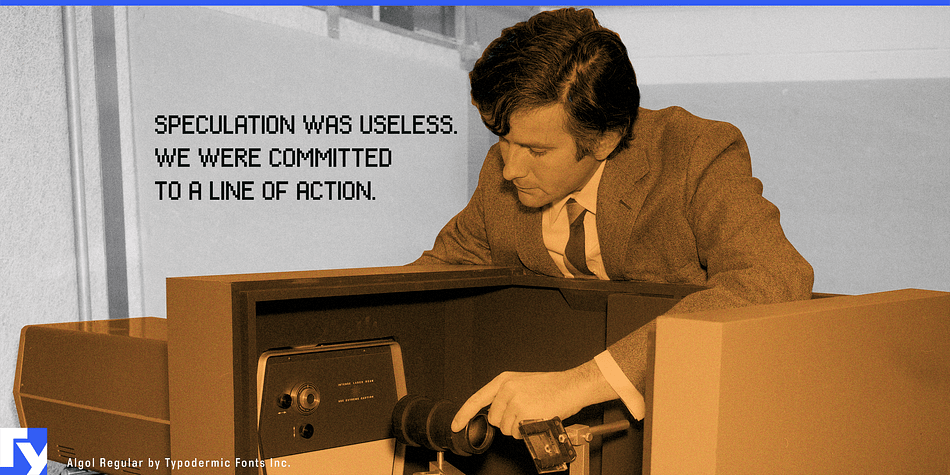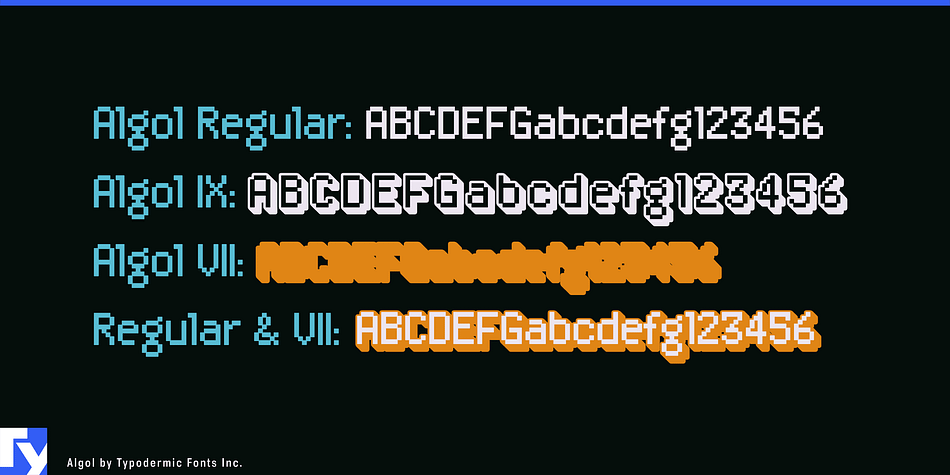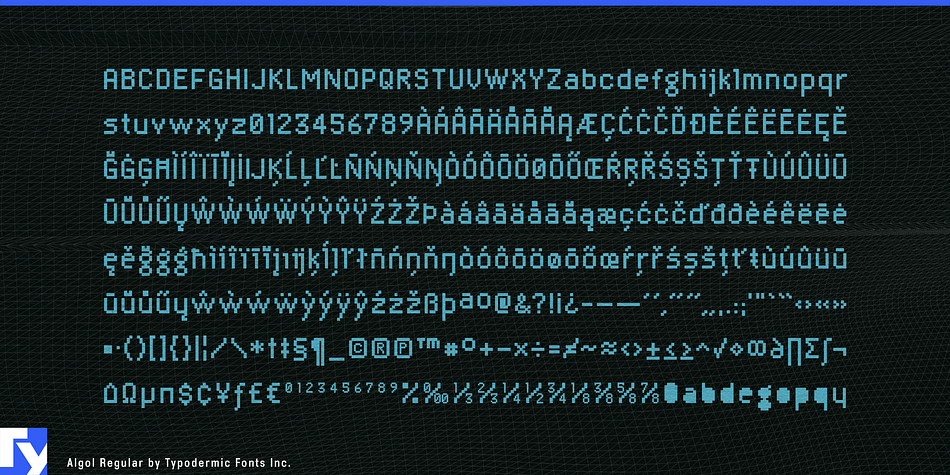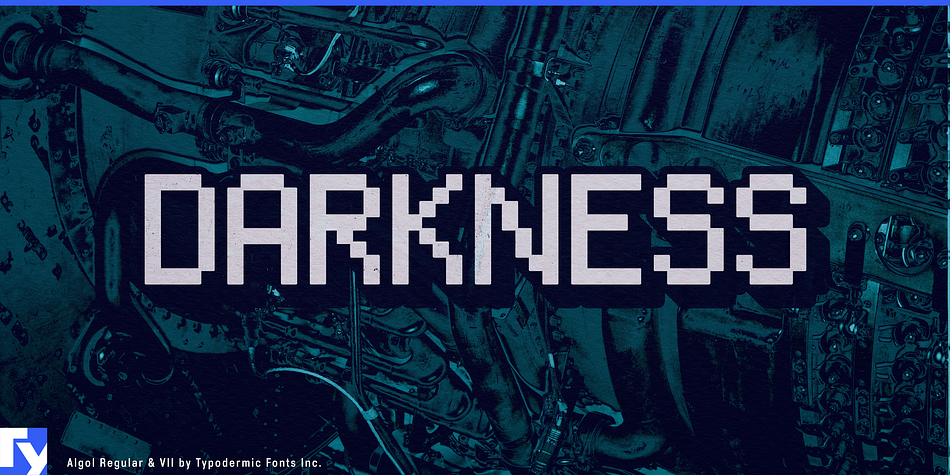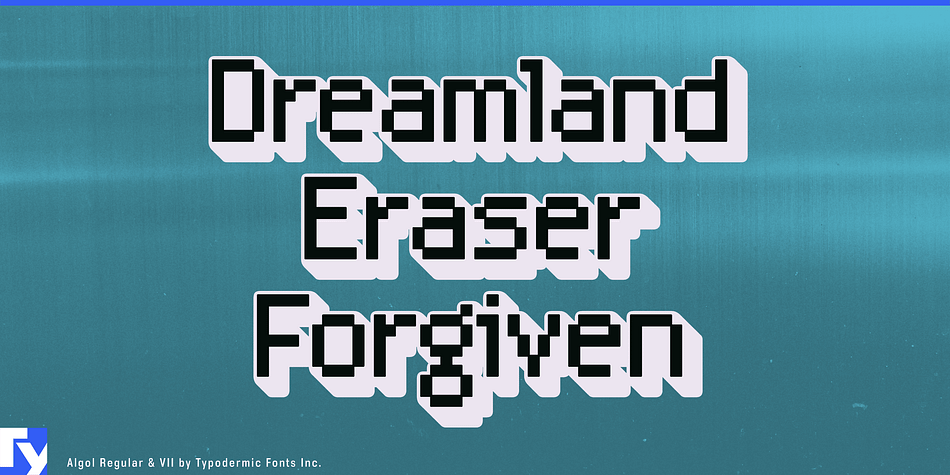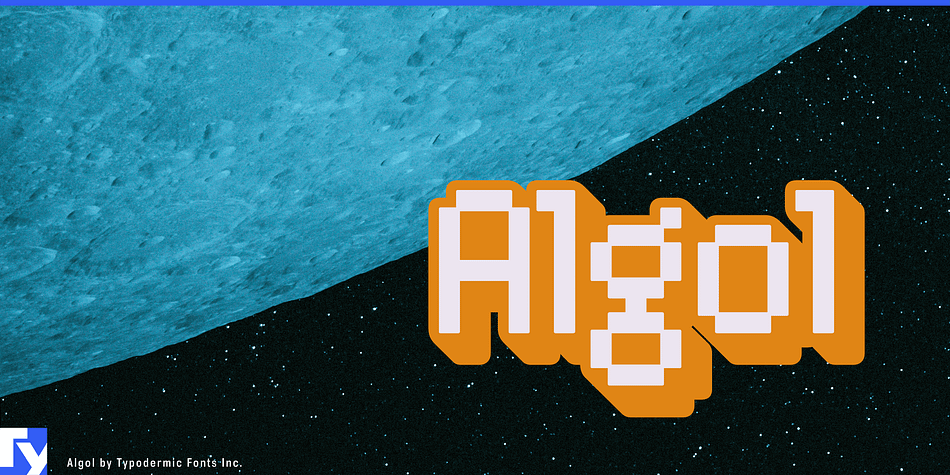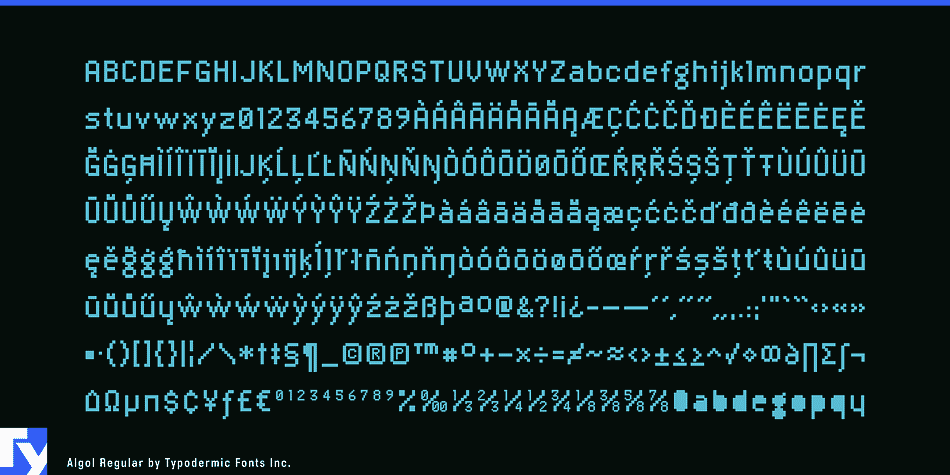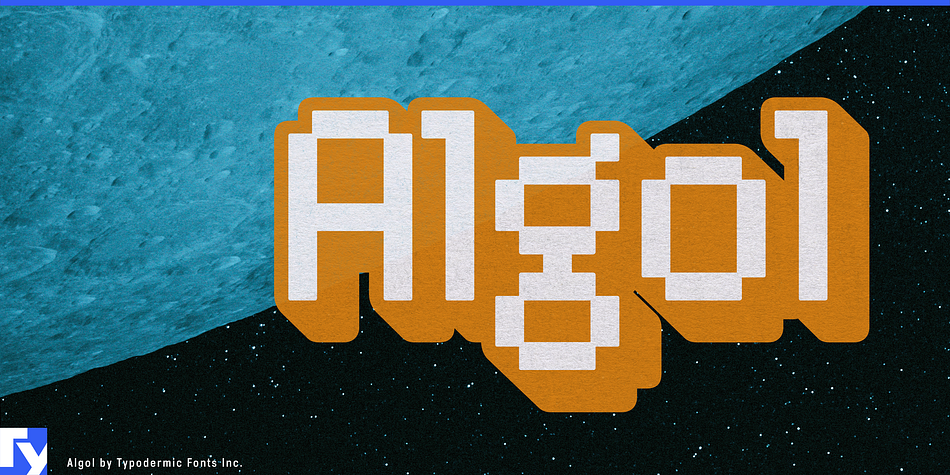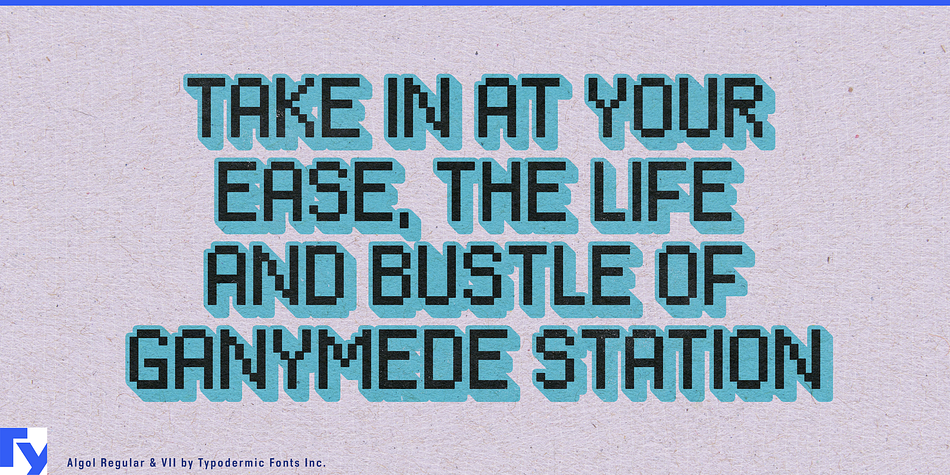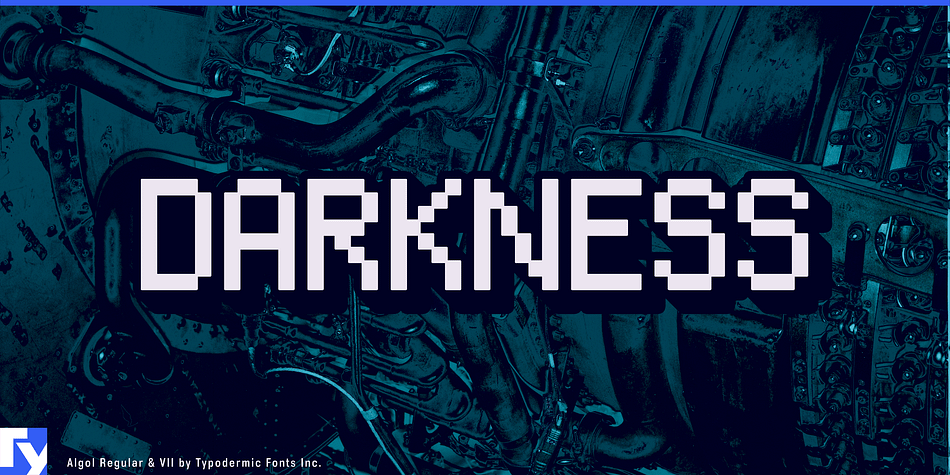
Algol is a novelty and pixel font family. This typeface has three styles and was published by Typodermic Fonts Inc.
Scientists discovered what they believe is a new display font. First sighted in constellation Perseus, it has been named Algol. The family consists of Algol Regular, Algol VII and Algol IX. Algol Regular and Algol VII can be layered for a striking effect. Algol IX is transparent with more relaxed spacing which enables the observer to see right through it. Alternate letters with closed counters provide a world of design possibilities.